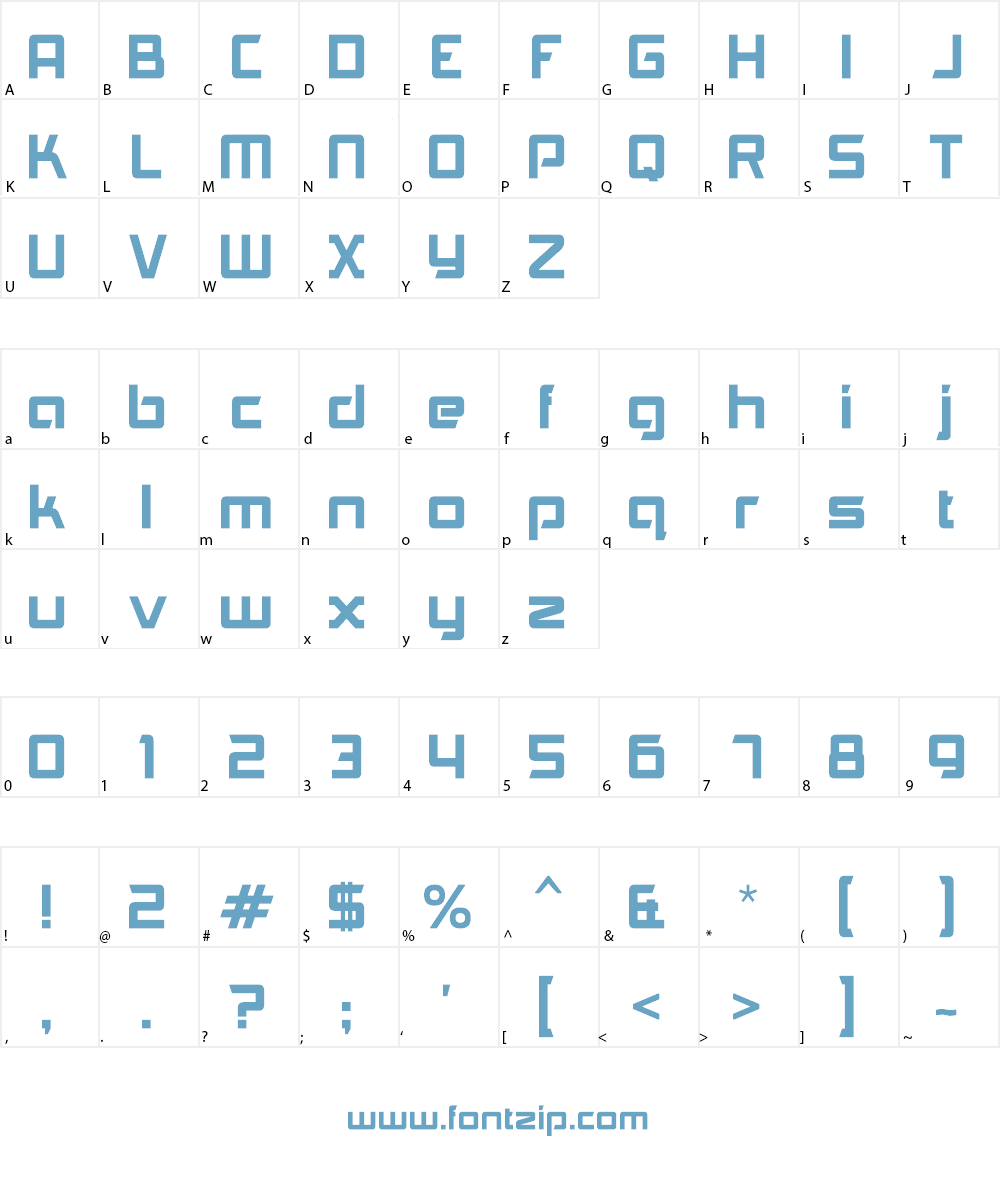
Akashi is a simplified font with a futuristic touch. Angled cut aways lend the shapes a sharper, more defined look than usually found in fonts of this weight.